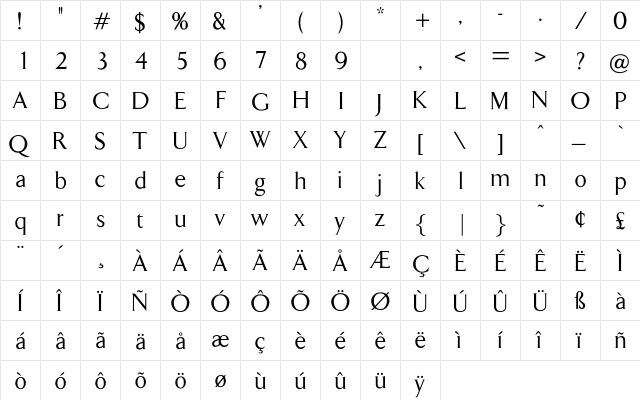
Arabien Regular
Design Context for Arabien Typeface
Arabien offers clean, dependable letterforms without strong stylistic allegiance, making it a practical choice for designers who need flexibility.
Pro Tip: Pair Arabien with a font of contrasting weight or personality to build a more expressive typographic hierarchy.